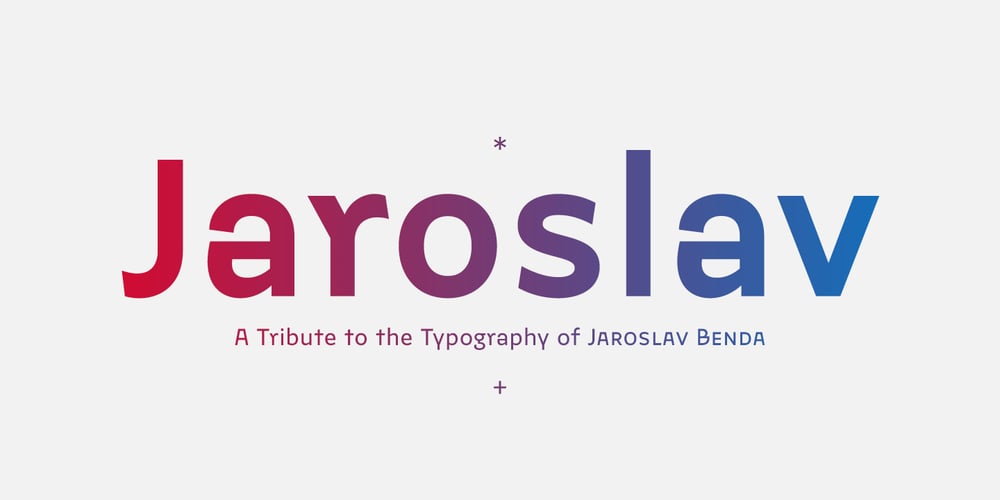
Jaroslav Font Family was designed by Tomáš Brousil and published by Suitcase Type Foundry. Jaroslav contains 10 styles and family package options. Jaroslav is a typeface that breaks down typical assumptions on the construction of a monolinear grotesque, but still maintains excellent readability and the recognizability of individual characters. The sensitively-balanced type family of five weights is accompanied by a distinctive italic, so it works well with both expressive titles as well as shorter texts. This is why all weights include small caps, nine types of figures, alternatives, a large number of ligatures, arrows and other ornaments.